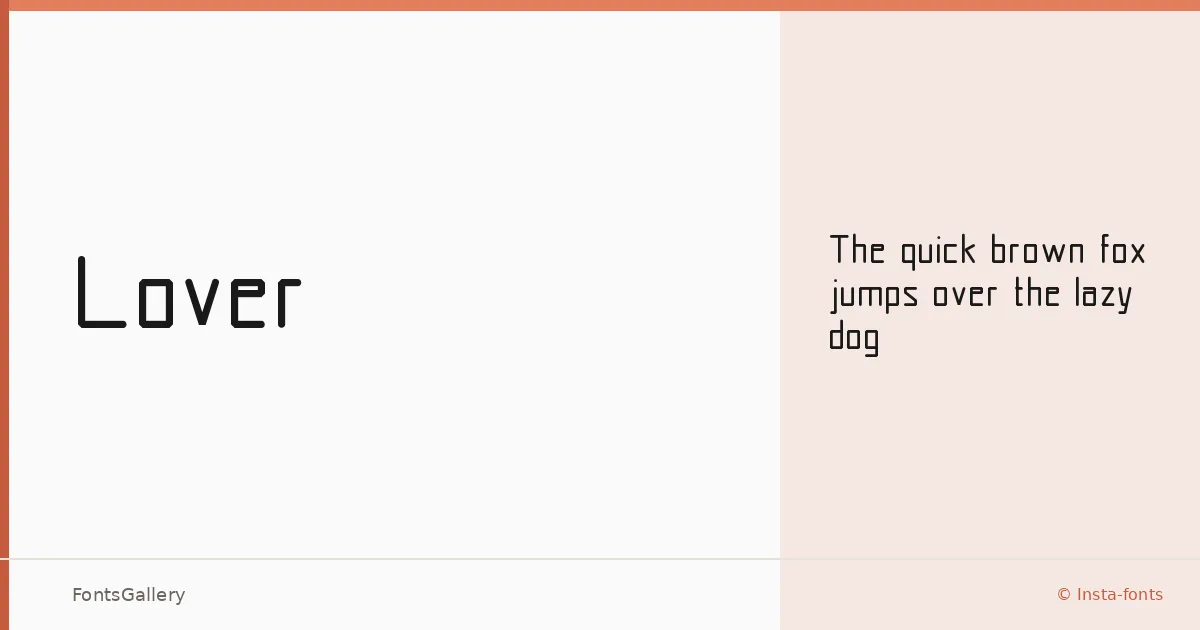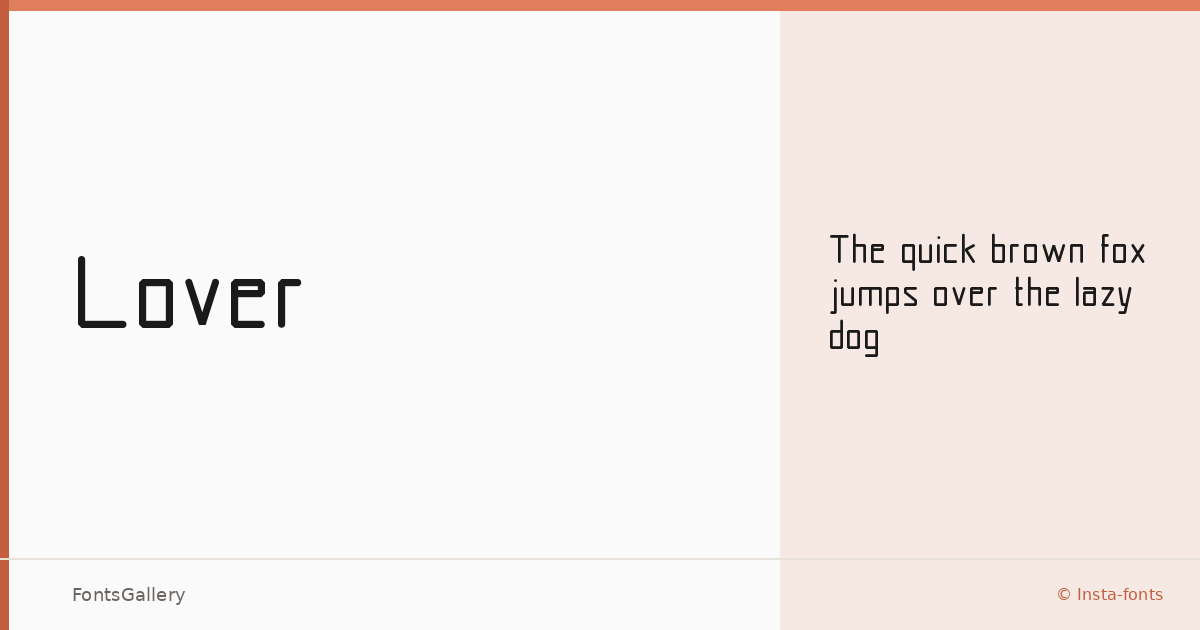
About Lover Font
There is a lightness to this display face — a playful restraint that keeps it feeling modern without trying too hard. Released by Insta-fonts under the copyright of Md Shohail Bhuian, it arrives as a single Regular cut in both TTF and OTF formats.
Sitting squarely in the display category, it carries a minimal, modern sensibility with just enough personality to read as playful rather than clinical. The single Regular weight means its character comes entirely from its shapes rather than any range of mass — which makes the letterforms themselves do the heavy lifting. That restraint works well when you need something distinctive at large sizes without visual noise.
It earns its place in branding, logo work, headlines, and posters — anywhere a face needs to hold attention at scale rather than sustain long reading. For body copy or supporting text, it pairs naturally with Helvetica or Josefin Sans for a clean, structured contrast, while Canela, Asap, or ABC Arizona each offer a different tonal register depending on how warm or editorial you want the layout to feel.